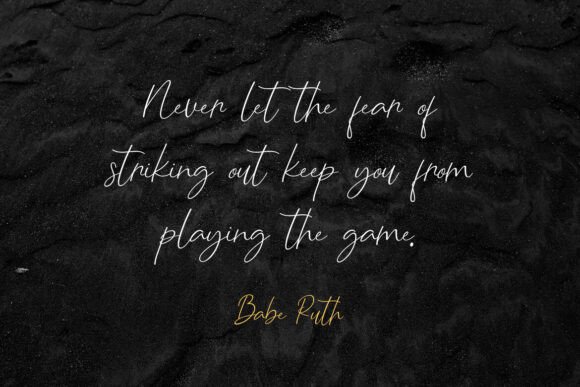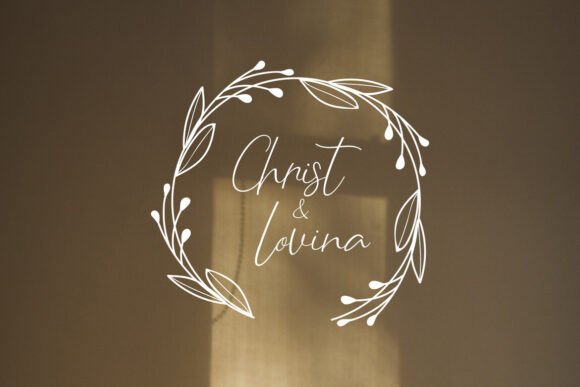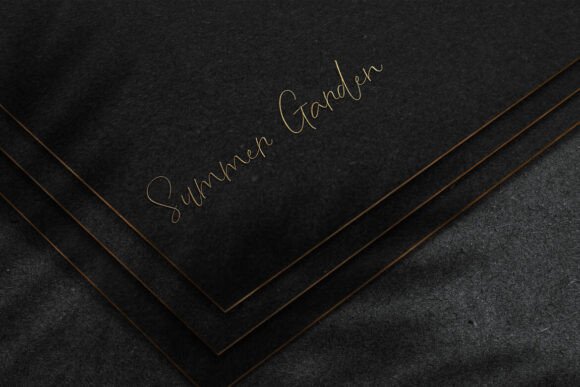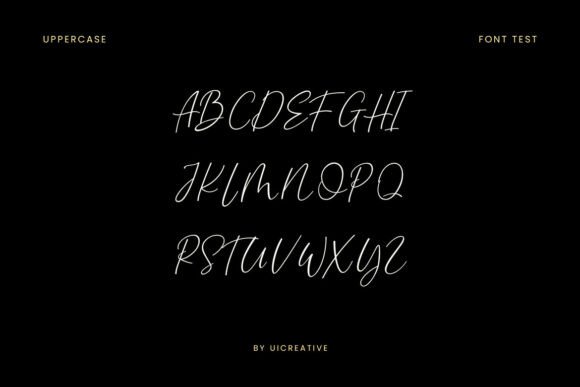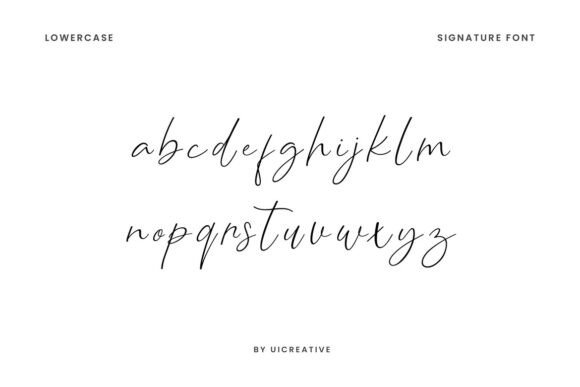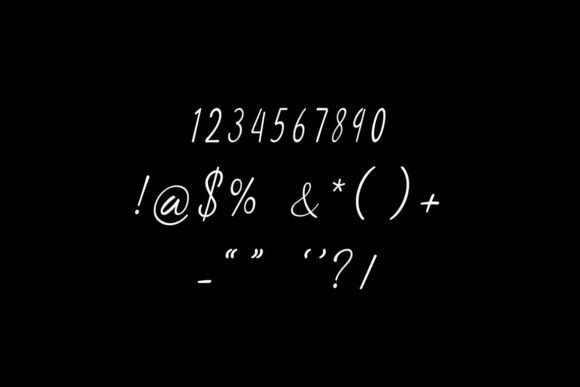
Find Your Signature Style with the Caralance Signature Font
There’s something magical about the moment when a design concept clicks – the font, the color palette, the entire aesthetic just comes together in a way that feels truly special. For designers, this moment is what makes all the hard work worth it. And when you’re working on a project that requires a touch of elegance and sophistication, the right font can make all the difference. That’s where the Caralance Signature Font comes in – a beautifully crafted script font that’s perfect for adding a touch of class to your designs.
Whether you’re creating a signature, logo, or branding materials, the Caralance Signature Font is a valuable addition to any designer’s toolkit. Its versatility and stylish feel make it ideal for a wide range of projects, from fashion-related branding to editorial design. With its perfect blend of masculine and feminine qualities, this font is sure to elevate your designs and leave a lasting impression.
Caralance Signature Font Key Features
- Font Family: Caralance Signature Font is a unique, high-end font family that includes a variety of styles and weights, making it ideal for professional and creative projects.
- Unique Characteristics: The Caralance Signature Font features a unique blend of modern and classic elements, with intricate details and subtle nuances that set it apart from other fonts.
- Styles and Weights: The font family includes 20+ styles and weights, ranging from elegant script fonts to bold sans-serif fonts, providing endless possibilities for creative expression.
Review of Caralance Signature Font
Overall, I think the Caralance Signature Font is a solid choice for any designer looking for a high-end, luxurious feel. ✨ The font’s elegant script and refined lines evoke a sense of sophistication and style, making it perfect for corporate branding, wedding invitations, and other high-end projects.
The font’s versatility is also worth noting. ✨ It comes in a range of weights, from Light to Extra Bold, allowing you to customize the look to fit your specific needs. Additionally, the font’s OpenType features enable advanced typography capabilities, such as ligatures and swashes, which can add an extra layer of sophistication to your designs.
- ✨ Elegant script and refined lines
- ✨ High-end, luxurious feel
- ✨ Versatile weight range
- ✨ Advanced OpenType features
- ⚠️ May not be suitable for projects requiring a more playful or casual tone
- ⚠️ Some users may find the font’s script style too ornate or overused
In terms of overall impression, I think the Caralance Signature Font is a great choice for designers who want to add a touch of elegance and sophistication to their projects. While it may not be the best fit for every project, it’s definitely worth considering for high-end or luxury branding projects.
Use the Caralance Signature Font for titles, headings, and logos to add a touch of elegance and sophistication.
Experiment with different font sizes and styles to create visual hierarchy and emphasis.
The Caralance Signature Font is ideal for:
Business cards and letterheads
Branding and logos
Corporate reports and presentations
Alternatives to Caralance Signature Font
Great Vibes Font is a beautiful, elegant script font perfect for creating a sense of sophistication and luxury. It’s ideal for use in wedding invitations, fashion brands, and high-end products. Great Vibes Font is more delicate and refined compared to Caralance Signature Font, which makes it a better choice for designs that require a touch of elegance.